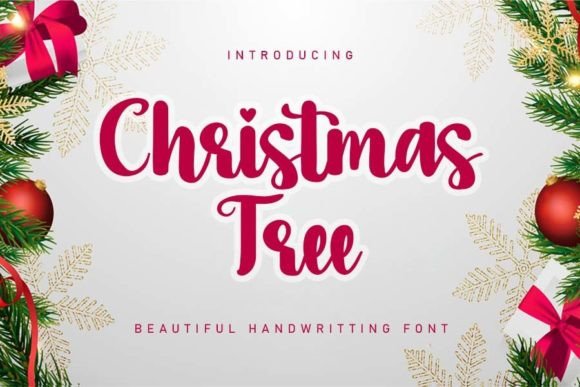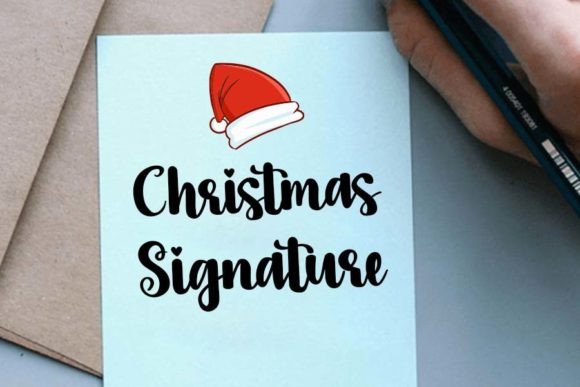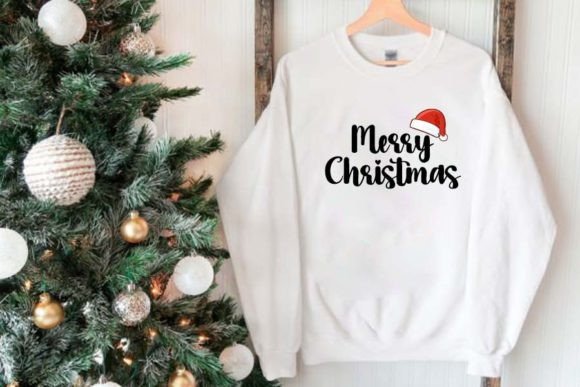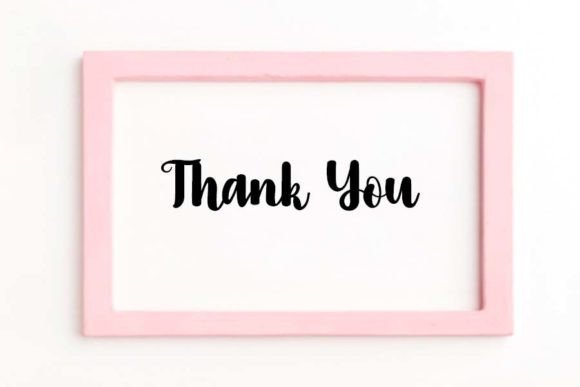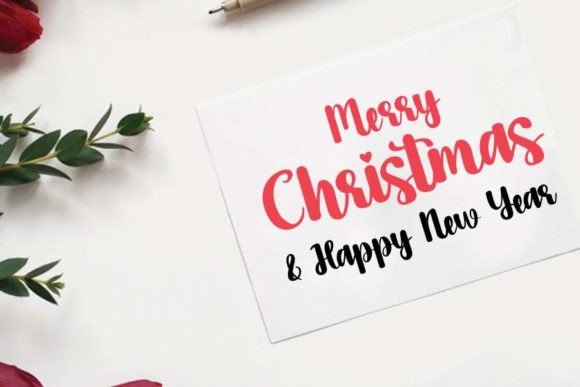
Christmas Tree Font
Add Classic Charm with Christmas Tree Font
The Christmas Tree font is a classic and simple handwritten script that brings timeless elegance to your creative projects. Its clean and balanced design makes it a versatile asset for any font library, with the ability to elevate a wide range of creations. Whether you’re crafting, branding, or designing invitations, this font delivers a polished and authentic look.
Perfect for Crafting, Branding, and Invitations
The Christmas Tree font shines across various applications such as wedding designs, stationery, social media posts, advertisements, product packaging, labels, and photography watermarks. Its classic style adds warmth and personality, making your projects feel inviting and memorable.
A Handwritten Script with Versatility
Every letter in the Christmas Tree font is crafted to provide clarity and style. The simple yet elegant strokes ensure excellent readability, whether used for headlines, body text, or decorative accents. This font’s versatility makes it suitable for both casual and formal design contexts.
Stylish, Readable, and Practical Typography
Despite its handwritten feel, the Christmas Treefont maintains excellent legibility at various sizes. It works well for large headings and smaller design elements alike, providing a natural and handcrafted touch without compromising clarity.
Make Your Designs Stand Out with Authenticity
Typography sets the tone for your message, and the Christmas Tree font adds a classic, authentic vibe. Ideal for creatives seeking a timeless handwritten script, download the Christmas Treefont today and bring warmth and style to your next project.